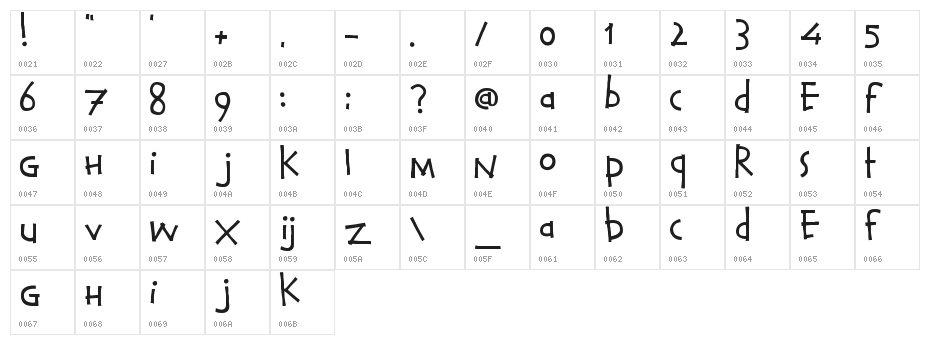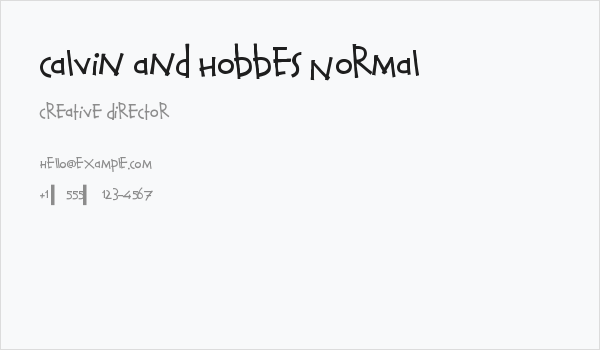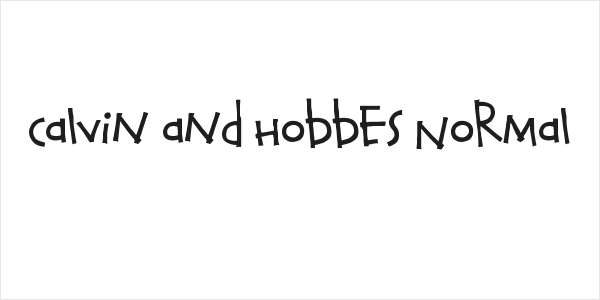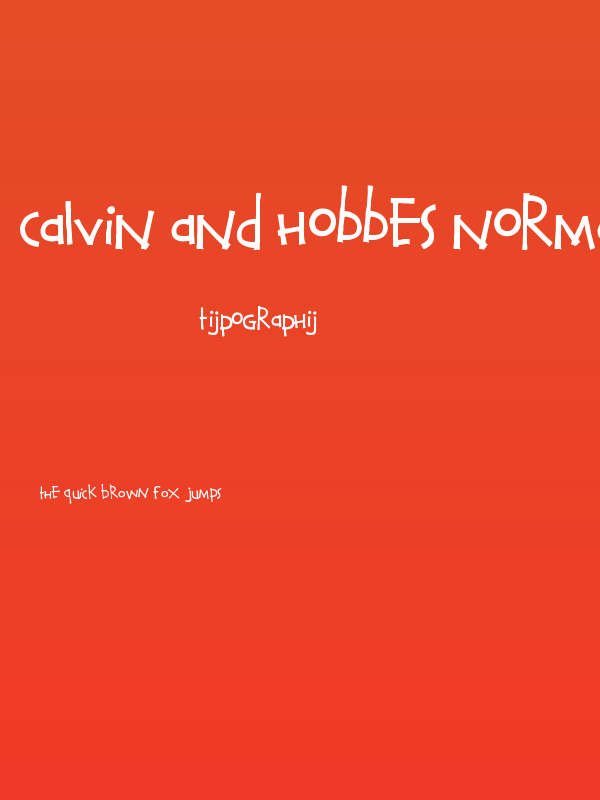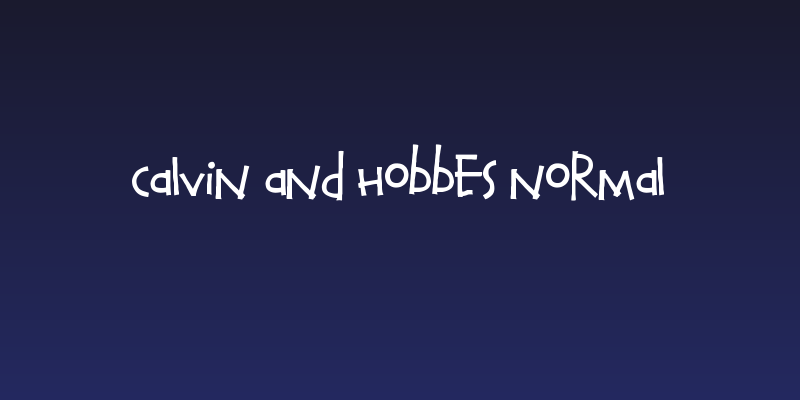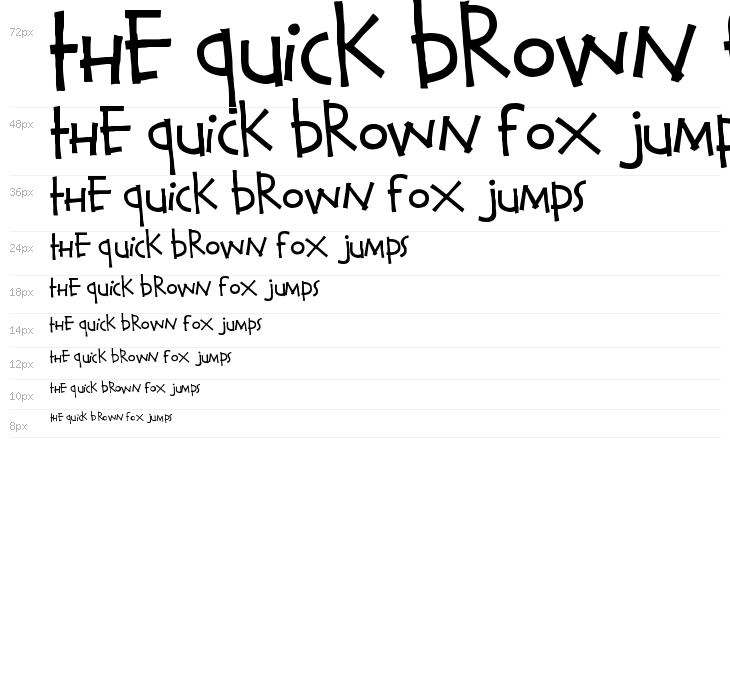
Calvin and Hobbes Normal Font
Calvin and Hobbes Normal Description
This playful and whimsical font features irregular, hand-drawn characters that evoke a sense of fun and creativity. The letters have a casual, uneven appearance, with varying stroke thicknesses that add to its charm. The uppercase and lowercase letters maintain a consistent style, with quirky angles and a slightly tilted orientation. Numbers and special characters follow the same playful design, making this font ideal for projects that require a lighthearted and informal touch.
| Proposed Projects | Ideal for children's books, comic strips, playful branding, and creative posters. |